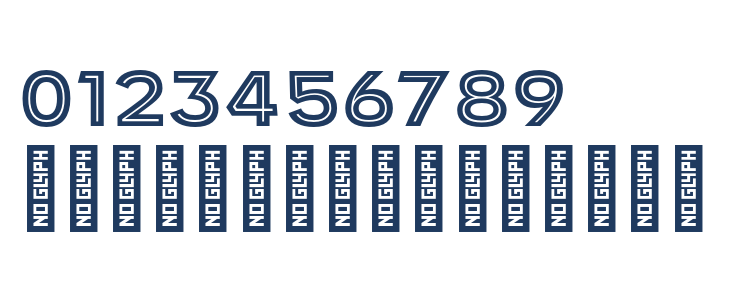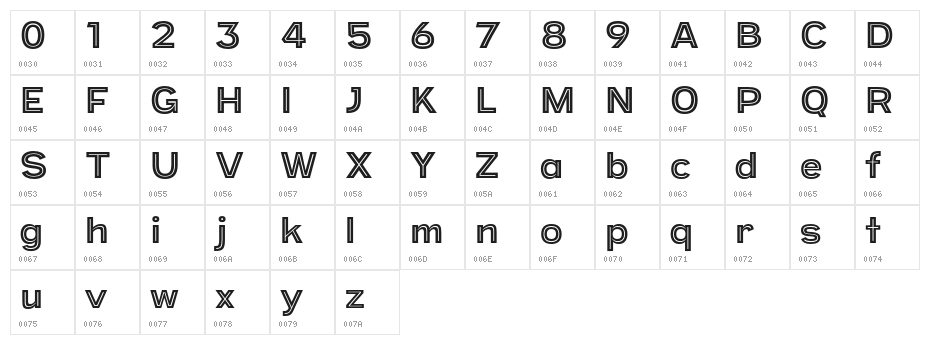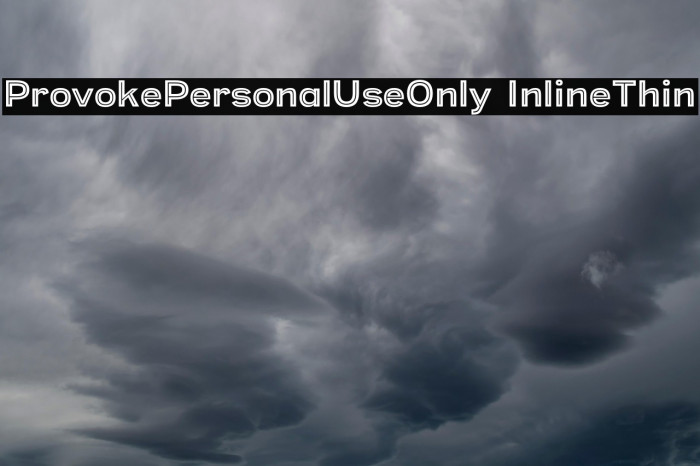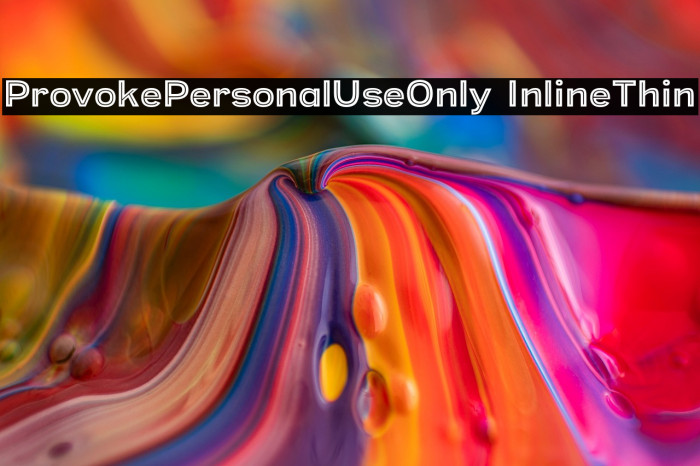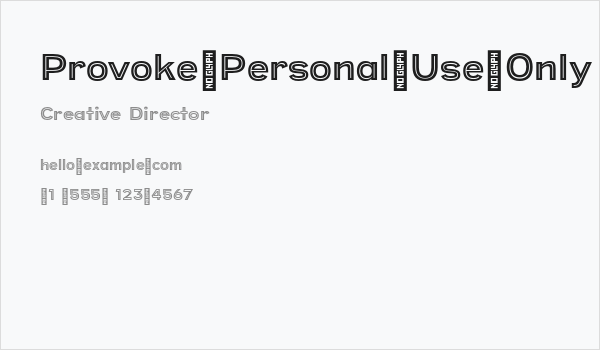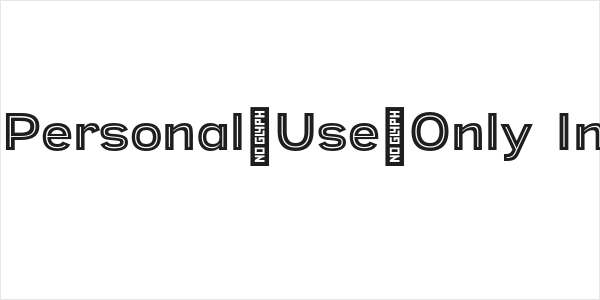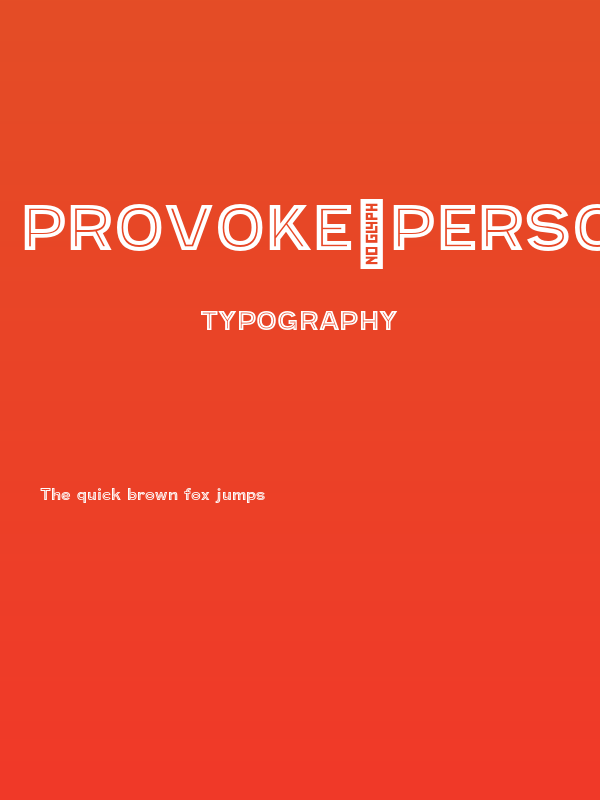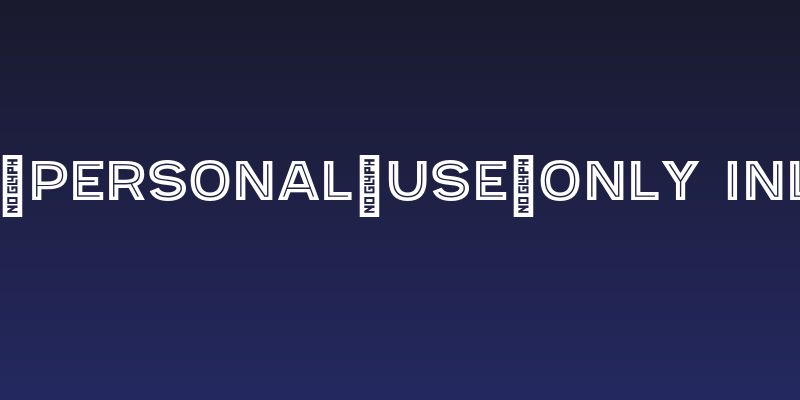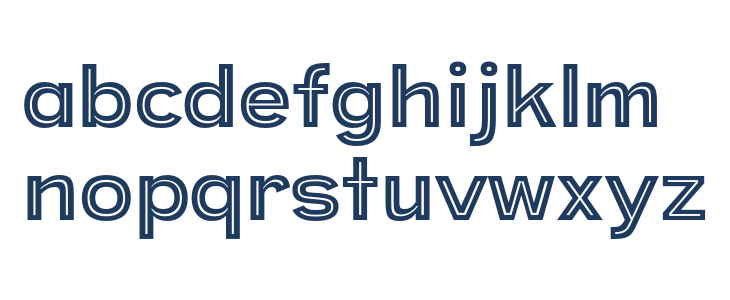
Provoke-Personal-Use-Only Inline-Thin Font
Provoke-Personal-Use-Only Inline-Thin Description
This font features a modern, inline design with clean, geometric lines and a structured appearance. The uppercase and lowercase letters maintain a consistent height, creating a uniform look across the alphabet. The inline style adds a unique dimension, giving each character a hollow, outlined effect that enhances its visual appeal. The numbers follow the same design principles, ensuring cohesion throughout. This font lacks special characters, focusing on alphanumeric clarity and style.
| Proposed Projects | Ideal for branding, headlines, posters, and digital media where a modern, stylish look is desired. |